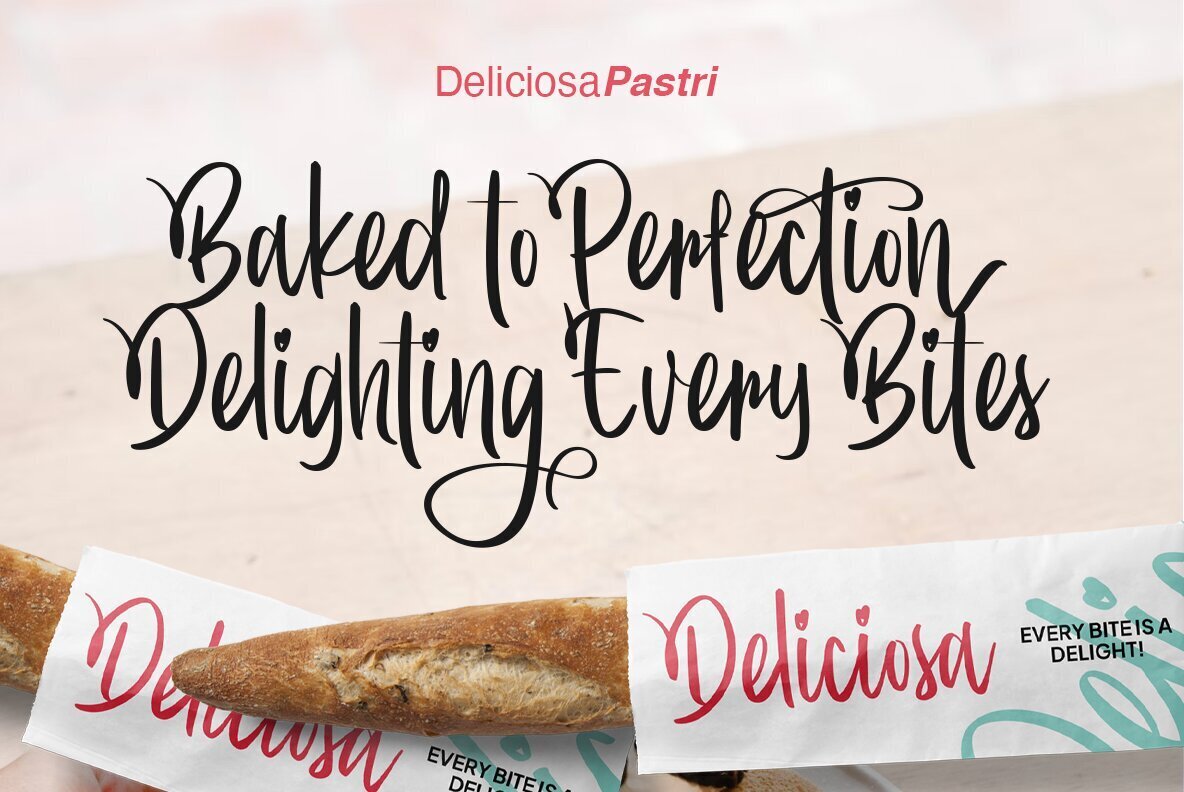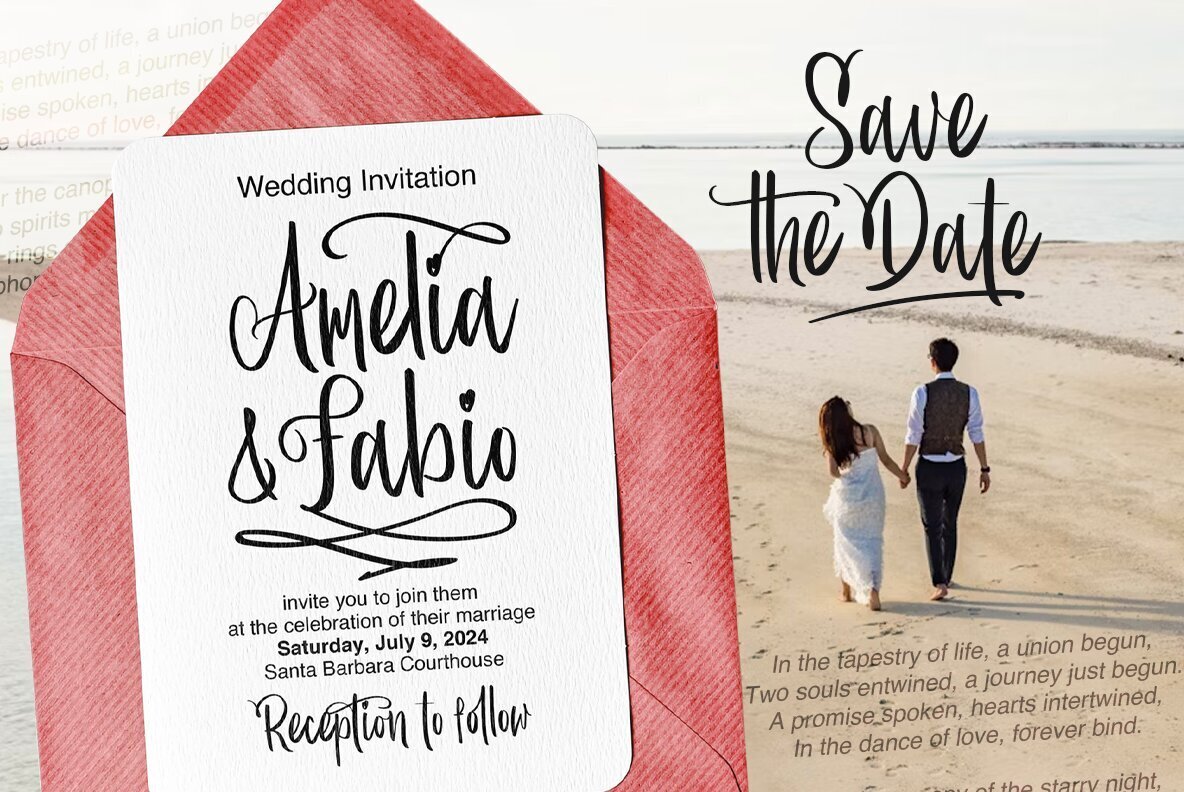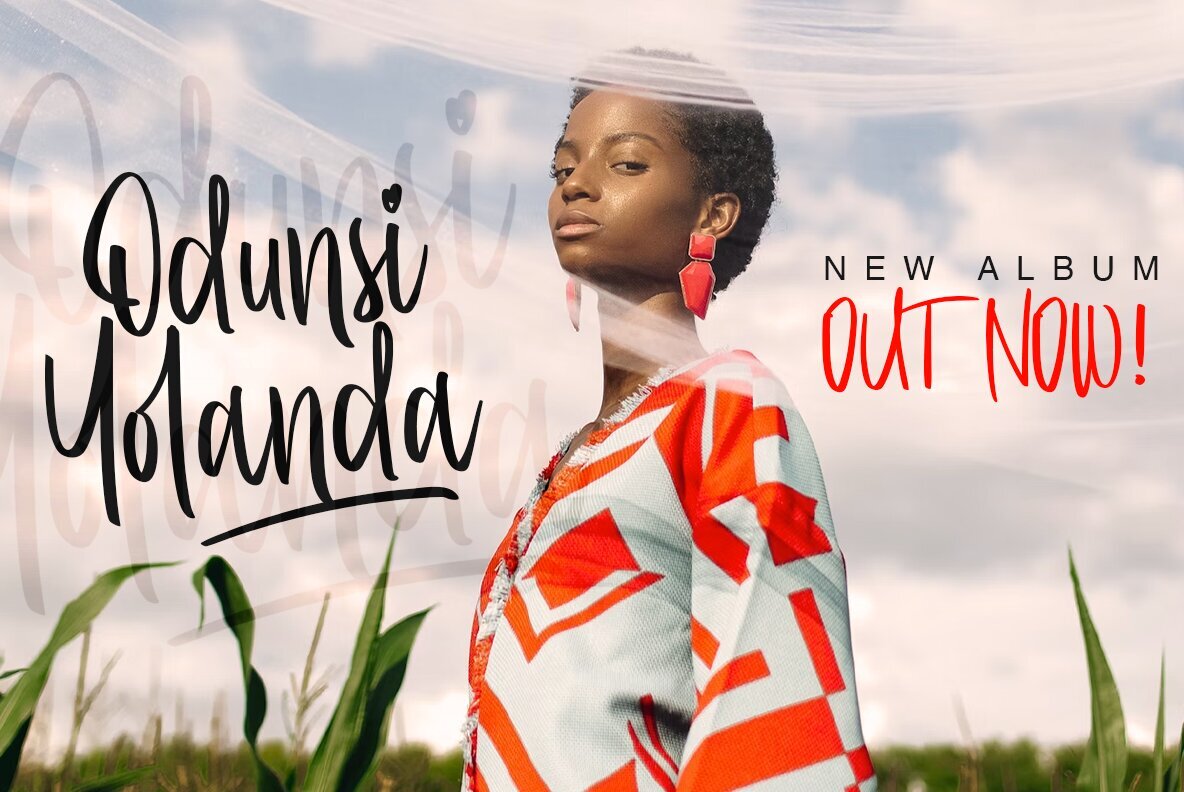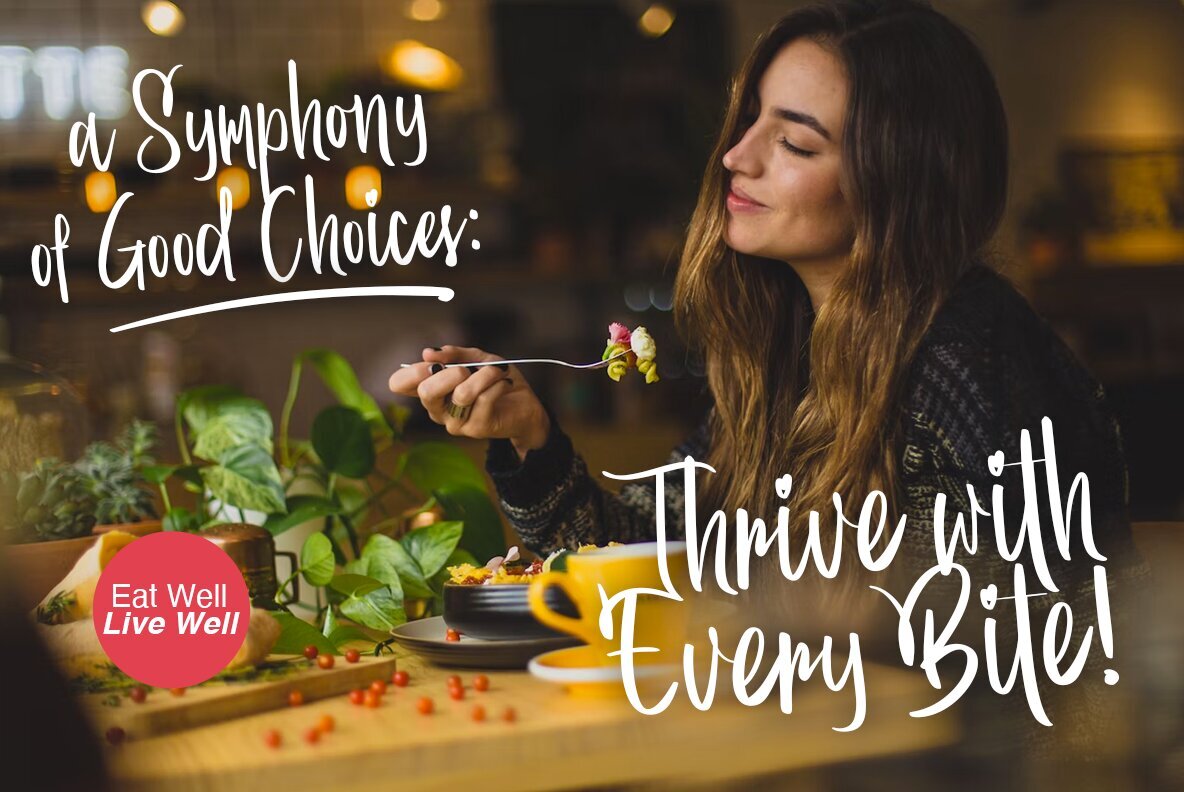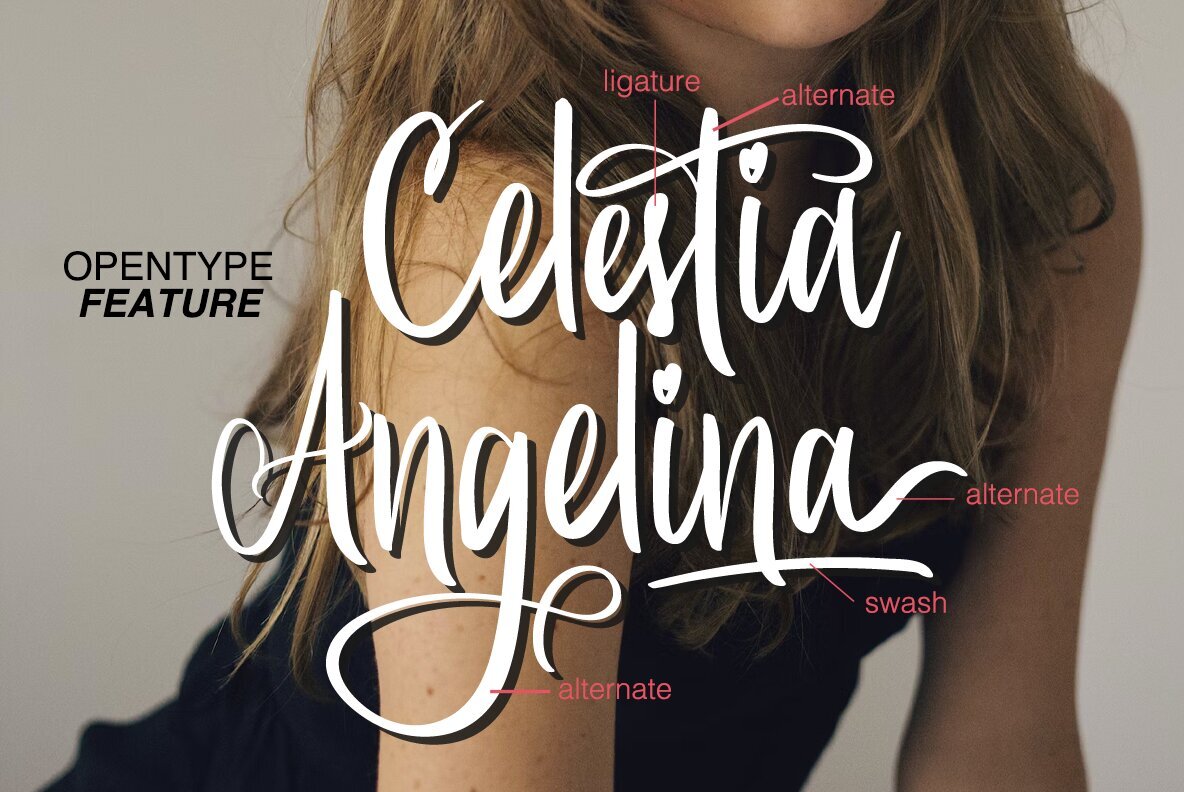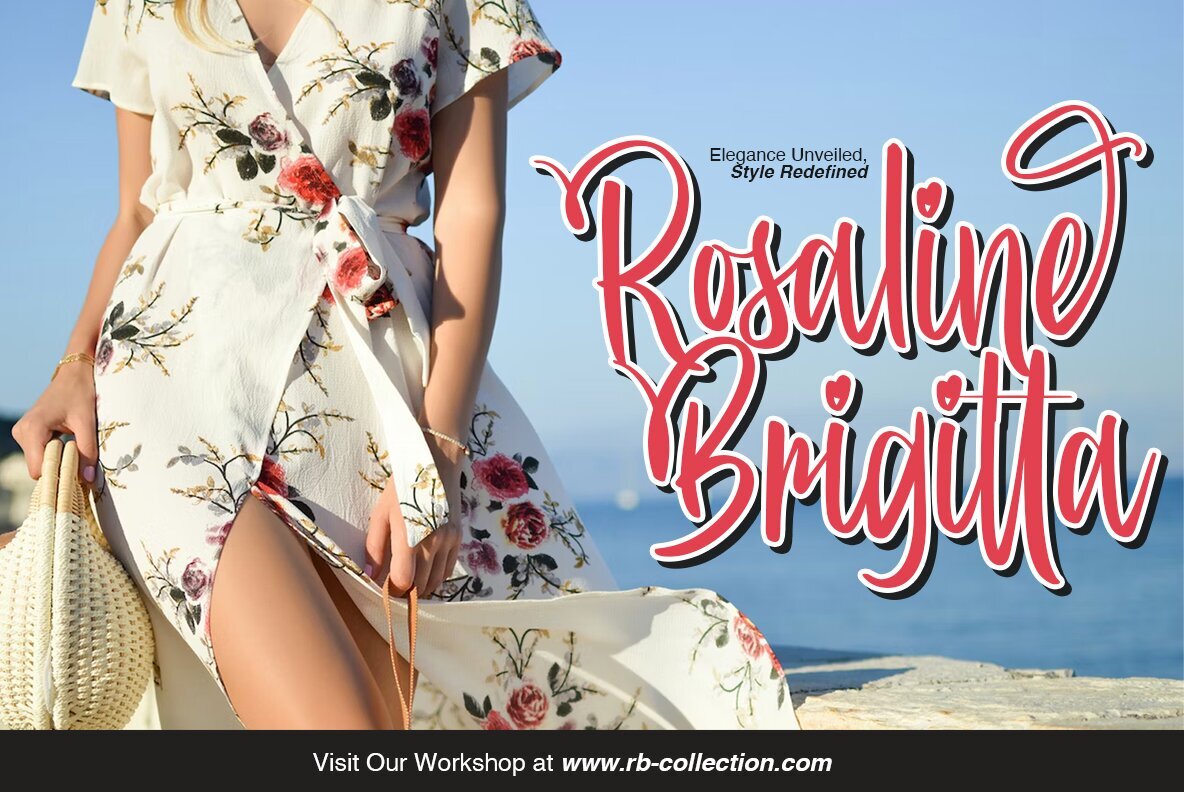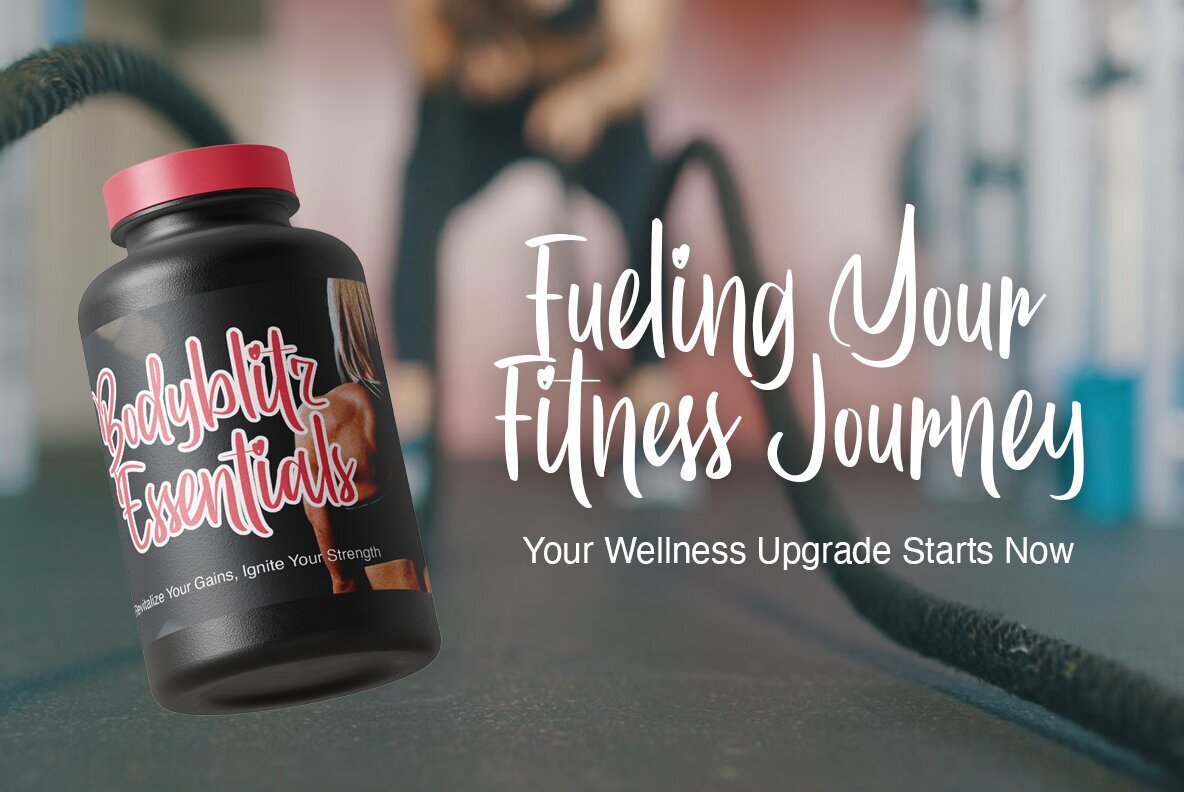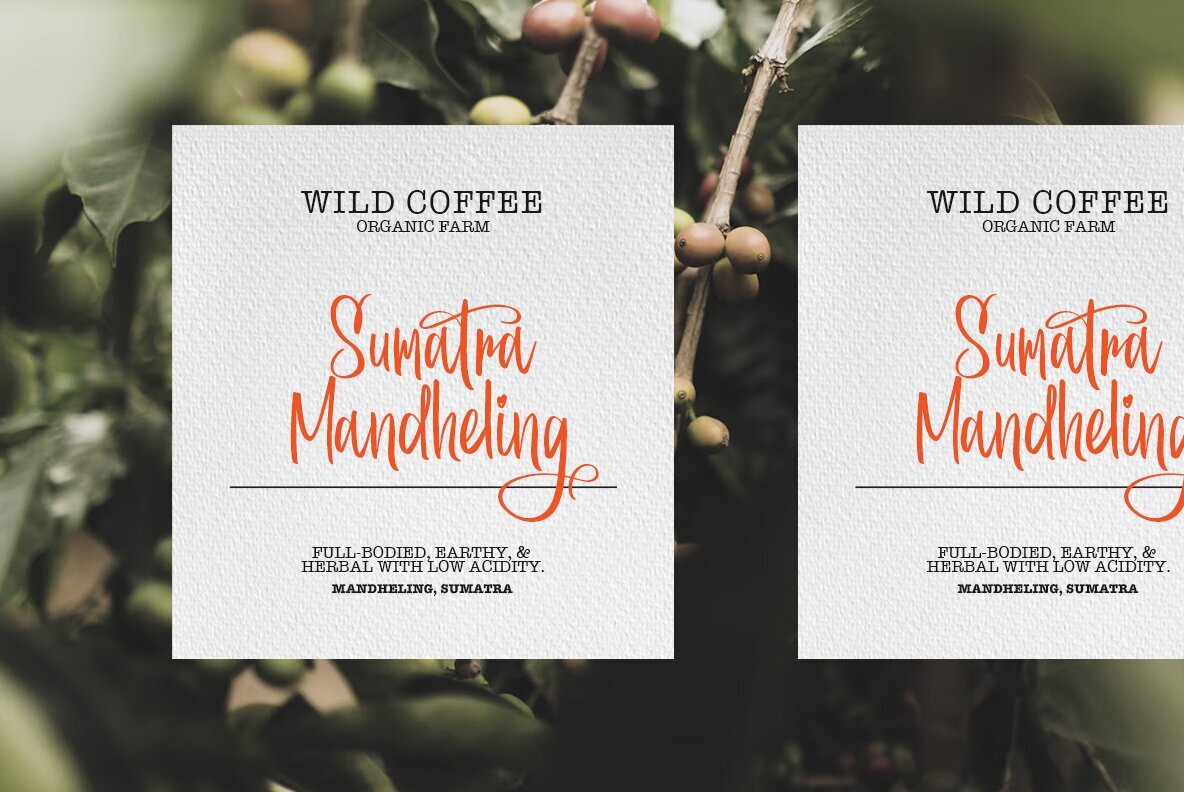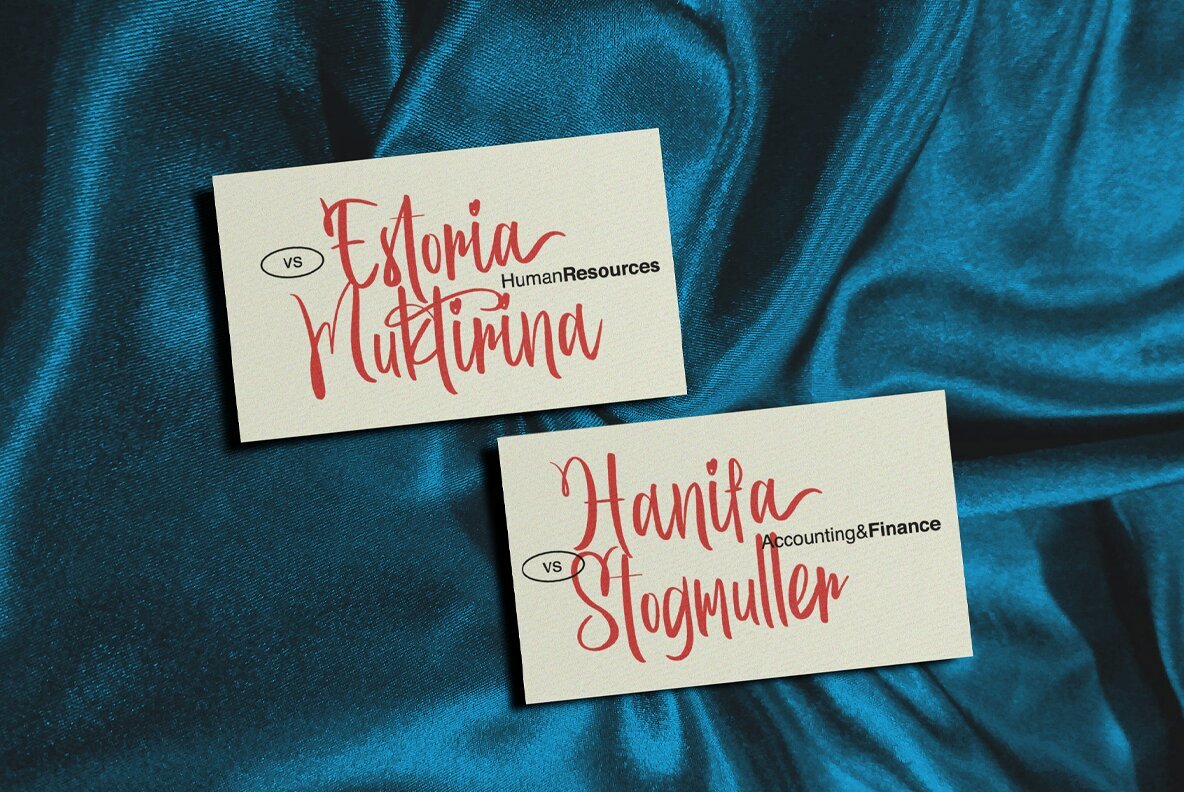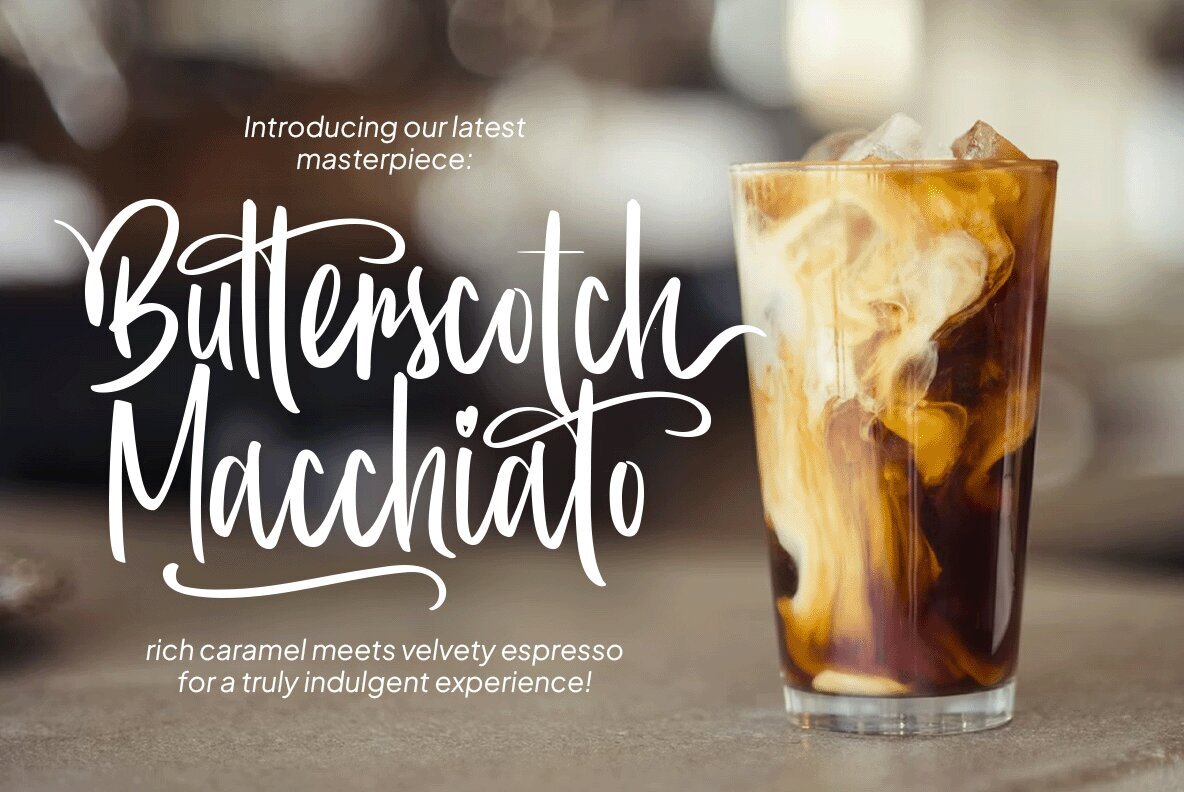
Breathaking Font
Breathaking Regular
Experience the elegance and sophistication of "Breathtaking," a script font meticulously crafted to add charm to your creative endeavors. Breathtaking is ideal for a variety of creative projects. Its stylish strokes and elegant design make it suitable for:Breathtaking: A Stylish Script Font